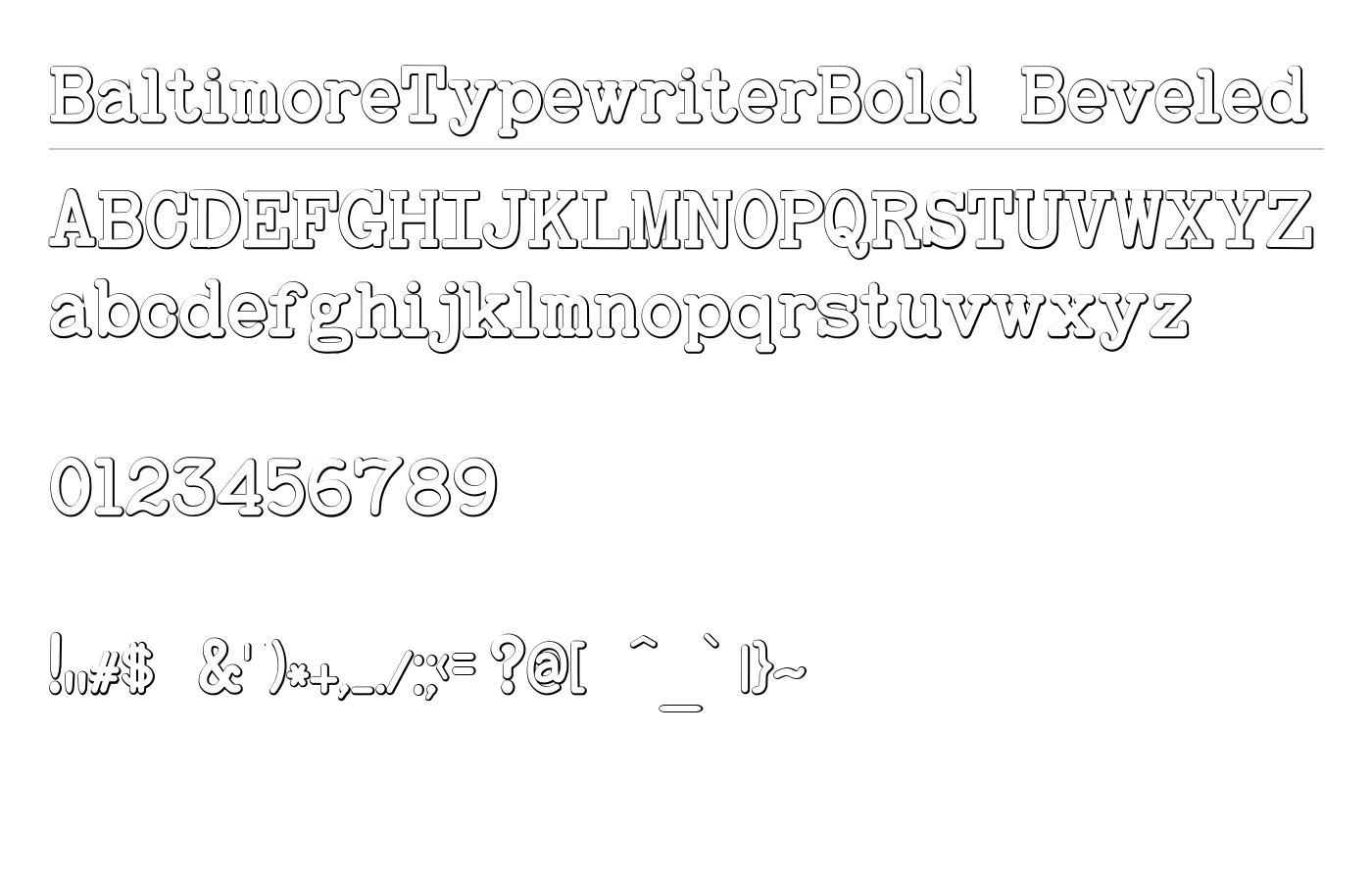
BaltimoreTypewriterBold Beveled is a bold slab serif font with a distinctive beveled edge that gives it a strong, vintage mechanical feel reminiscent of classic typewriters. Its sturdy letterforms with medium contrast and blocky serifs make it ideal for attention-grabbing headlines, retro branding, and editorial designs that want to evoke a blend of industrial charm and timeless solidity. This font works well in contexts needing a bold, nostalgic personality with clear readability and a touch of playful craftsmanship.
BaltimoreTypewriterBold Beveled Font
About BaltimoreTypewriterBold Beveled Font
| Font family | BaltimoreTypewriterBold Beveled Font |